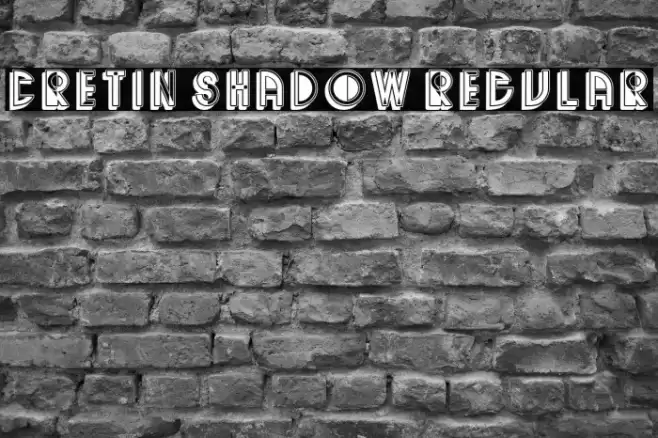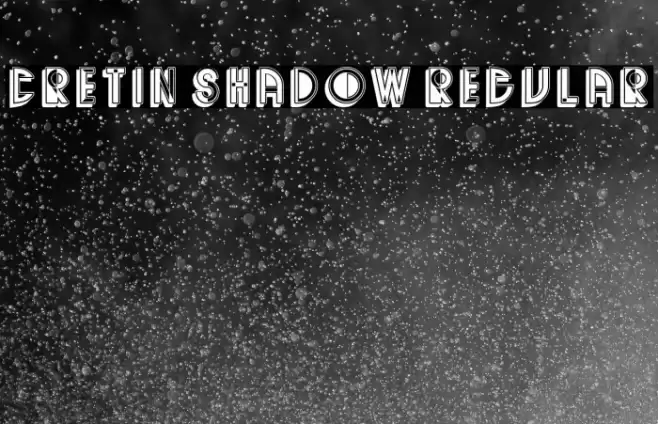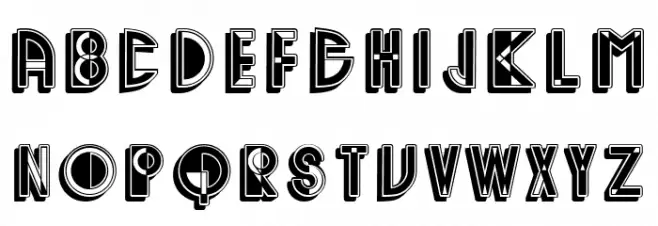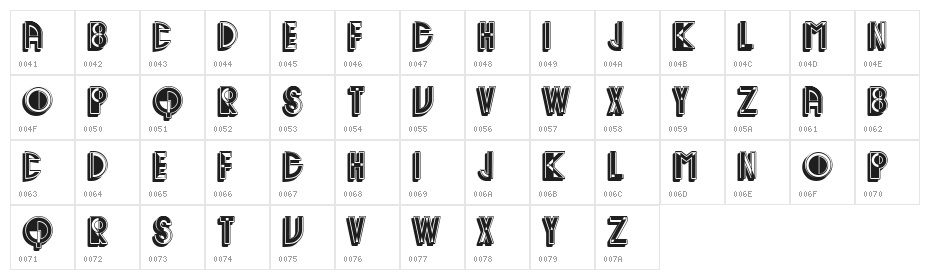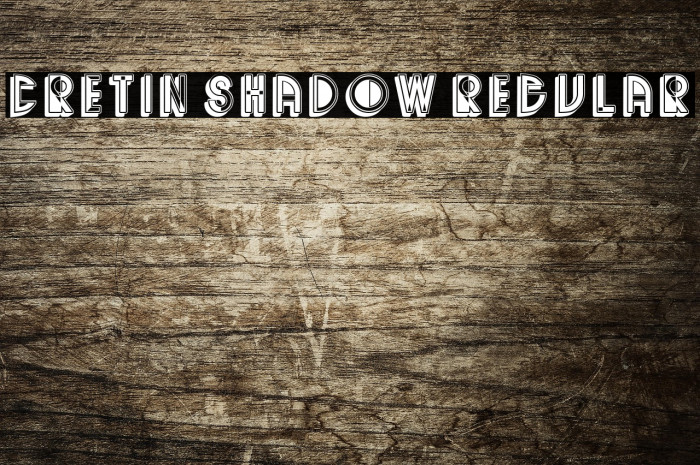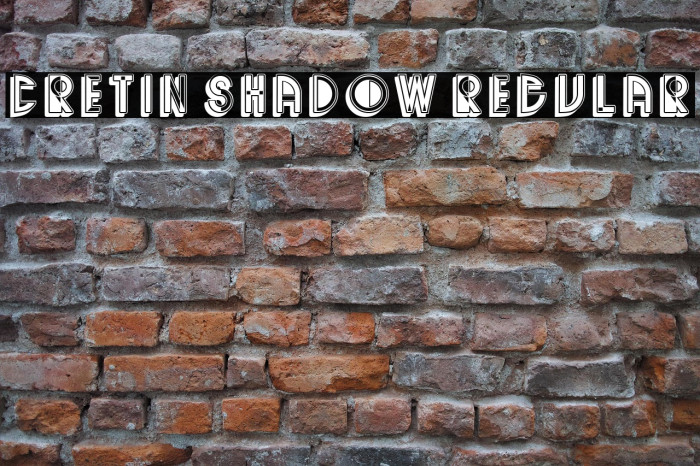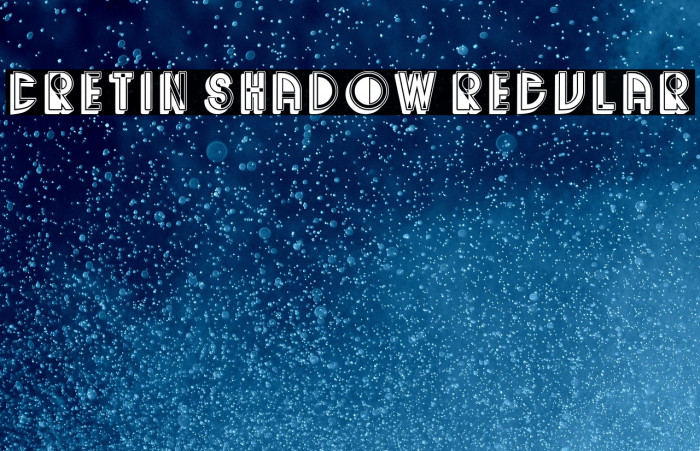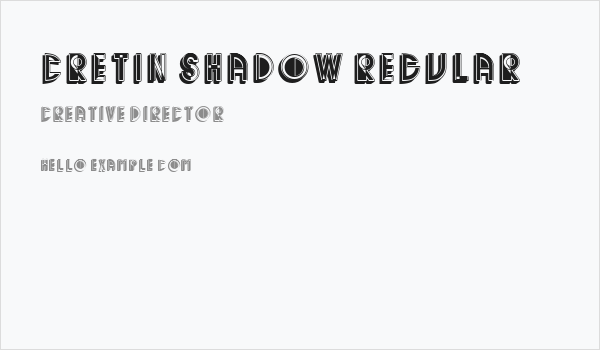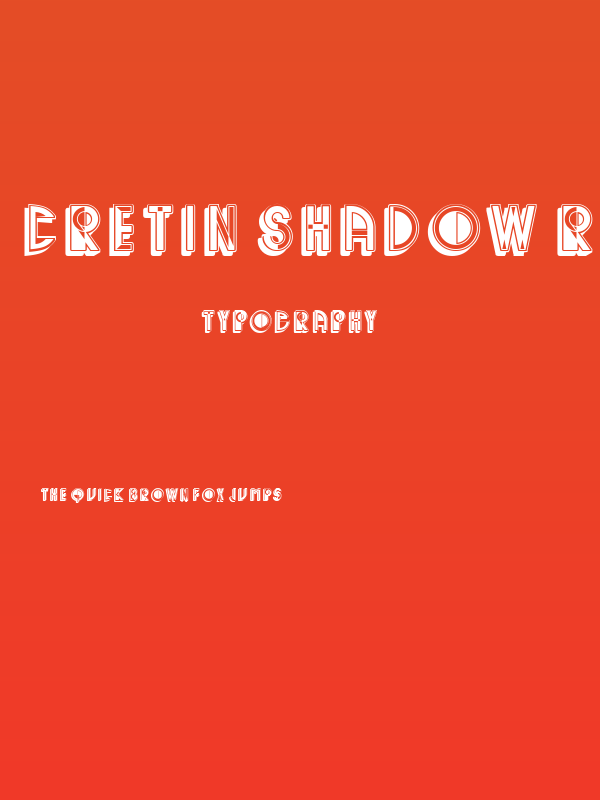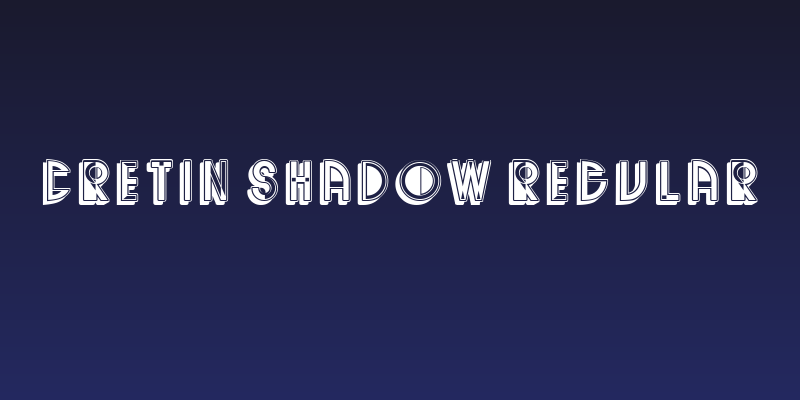
Cretin Shadow Regular Font
Cretin Shadow Regular Description
This font features a bold, geometric design with a distinct shadow effect that adds depth and dimension to each character. The uppercase letters are characterized by their thick, block-like structure, while the shadowing creates a three-dimensional appearance. The font's style is reminiscent of retro and vintage signage, making it eye-catching and ideal for display purposes. The characters are evenly spaced, ensuring readability despite their decorative nature. This font is perfect for projects that require a strong visual impact, such as posters, headlines, and branding materials.
A bold, geometric font with a shadow effect, ideal for retro and vintage designs from Decorative fonts.
- Proposed Projects: Posters, headlines, branding materials, retro-themed designs, and signage.
- Overall Style: Vintage